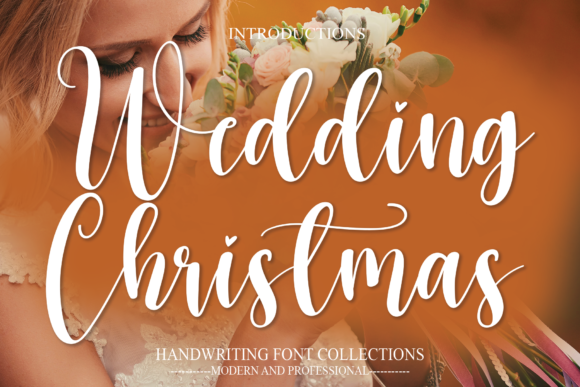
Introducing Wedding Christmas Font: The Ultimate Festive Script Font for Your Holiday Designs
Are you looking for a font that captures the essence of the holiday season? Do you want to add a touch of elegance and sophistication to your wedding invitations, Christmas cards, or festive designs? Look no further than Wedding Christmas Font, a stunning script font that is sure to make your designs shine.
What is Wedding Christmas Font?
Wedding Christmas Font is a beautifully crafted script font that is perfect for creating festive and stylish designs. With its smooth curves and balanced structure, this font is ideal for use in fashion branding, editorial designs, and holiday-themed projects. Whether you’re designing a wedding invitation, a Christmas card, or a festive poster, Wedding Christmas Font is the perfect choice.
Key Features of Wedding Christmas Font
- Smooth Curves: Wedding Christmas Font features smooth, flowing curves that give it a elegant and sophisticated look.
- Well-Balanced: The font is carefully crafted to ensure that it is well-balanced and visually appealing.
- Festive Style: The font has a distinctly festive feel, making it perfect for holiday-themed designs.
- Script Style: Wedding Christmas Font is a script font, adding a touch of elegance and sophistication to your designs.
Why Choose Wedding Christmas Font?
There are many reasons why Wedding Christmas Font is the perfect choice for your holiday designs. Here are just a few:
- Unique and Eye-Catching: Wedding Christmas Font is a unique and eye-catching font that will make your designs stand out from the crowd.
- Versatile: The font is versatile and can be used in a variety of designs, from wedding invitations to Christmas cards and festive posters.
- Elegant and Sophisticated: Wedding Christmas Font adds a touch of elegance and sophistication to your designs, making them perfect for special occasions.
- Easy to Read: The font is easy to read, even at small sizes, making it perfect for use in a variety of designs.
Tips and Tricks for Using Wedding Christmas Font
Here are a few tips and tricks to help you get the most out of Wedding Christmas Font:
- Pair with Other Fonts: Wedding Christmas Font pairs well with other fonts, such as sans serif fonts or serif fonts.
- Use in Combination with Images: Use Wedding Christmas Font in combination with images or graphics to add visual interest to your designs.
- Experiment with Colors: Experiment with different colors to find the perfect match for your design.
- Keep it Simple: Keep your design simple and elegant, allowing the font to take center stage.
Wedding Christmas Font in Action
Wedding Christmas Font can be used in a variety of designs, from wedding invitations to Christmas cards and festive posters. Here are a few examples of how the font can be used:
Wedding Invitations
Wedding Christmas Font is perfect for use in wedding invitations, adding a touch of elegance and sophistication to your design.
Christmas Cards
Wedding Christmas Font is also perfect for use in Christmas cards, adding a festive touch to your design.
Festive Posters
Wedding Christmas Font can also be used in festive posters, adding a touch of elegance and sophistication to your design.
Wedding Christmas Font is a beautiful and versatile script font that is perfect for use in holiday designs. With its smooth curves, well-balanced structure, and festive style, this font is sure to make your designs shine. Whether you’re designing a wedding invitation, a Christmas card, or a festive poster, Wedding Christmas Font is the perfect choice.